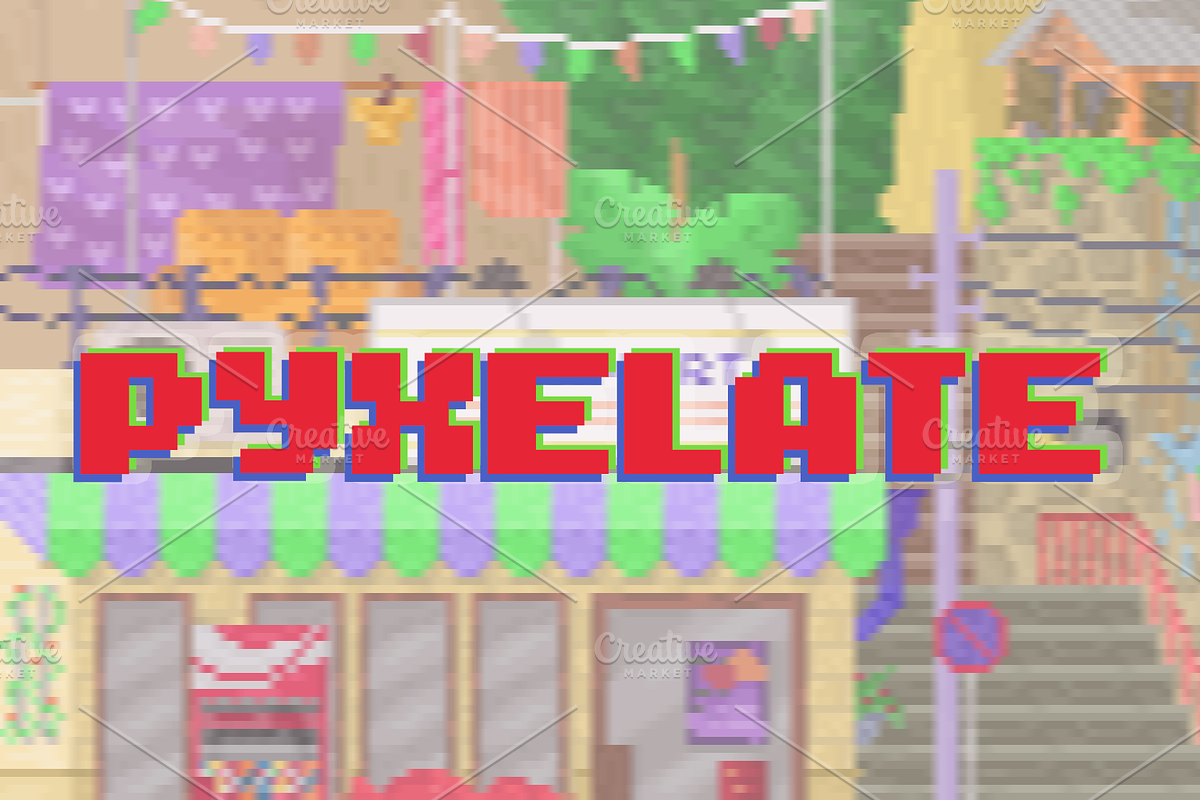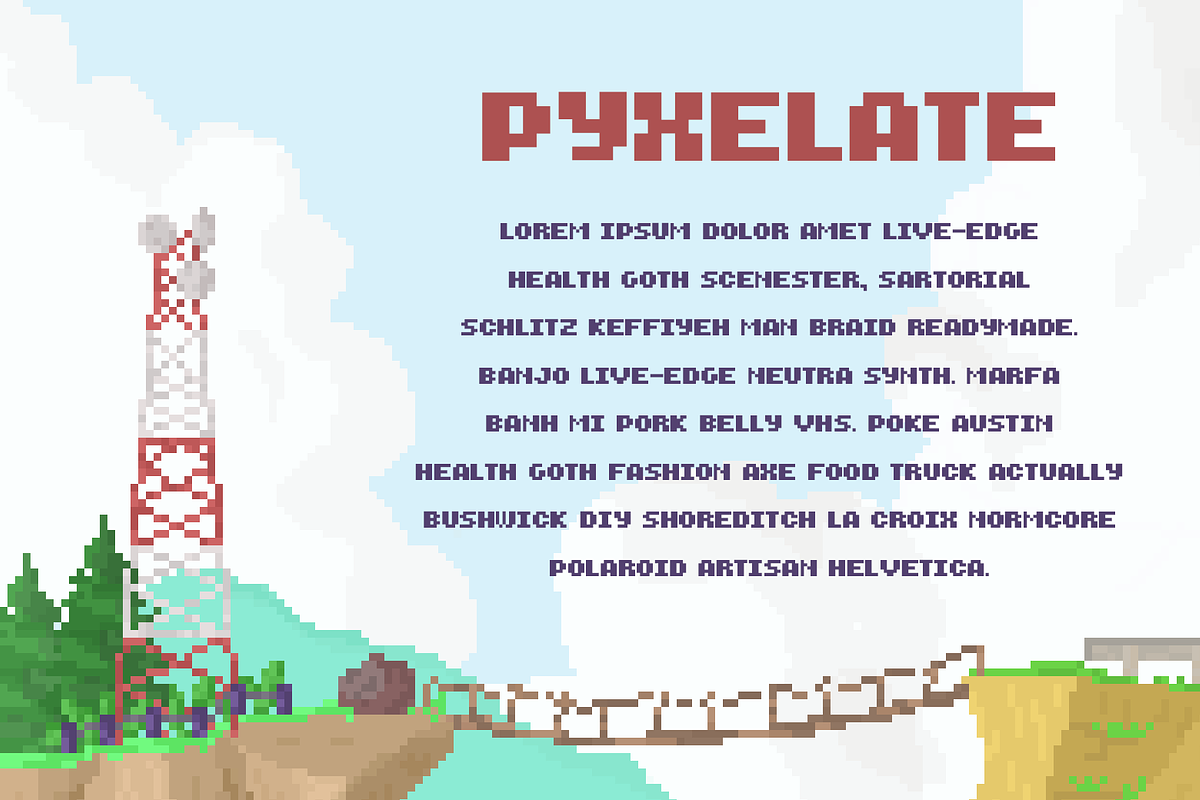
Pyxelate - Retro Pixel Font
Single font with retro pixel style
Why Pyxelate - Retro Pixel Font is worth a look
Pyxelate - Retro Pixel Font by The Nice Kalam fits naturally into Branding, posters, packaging, typography.